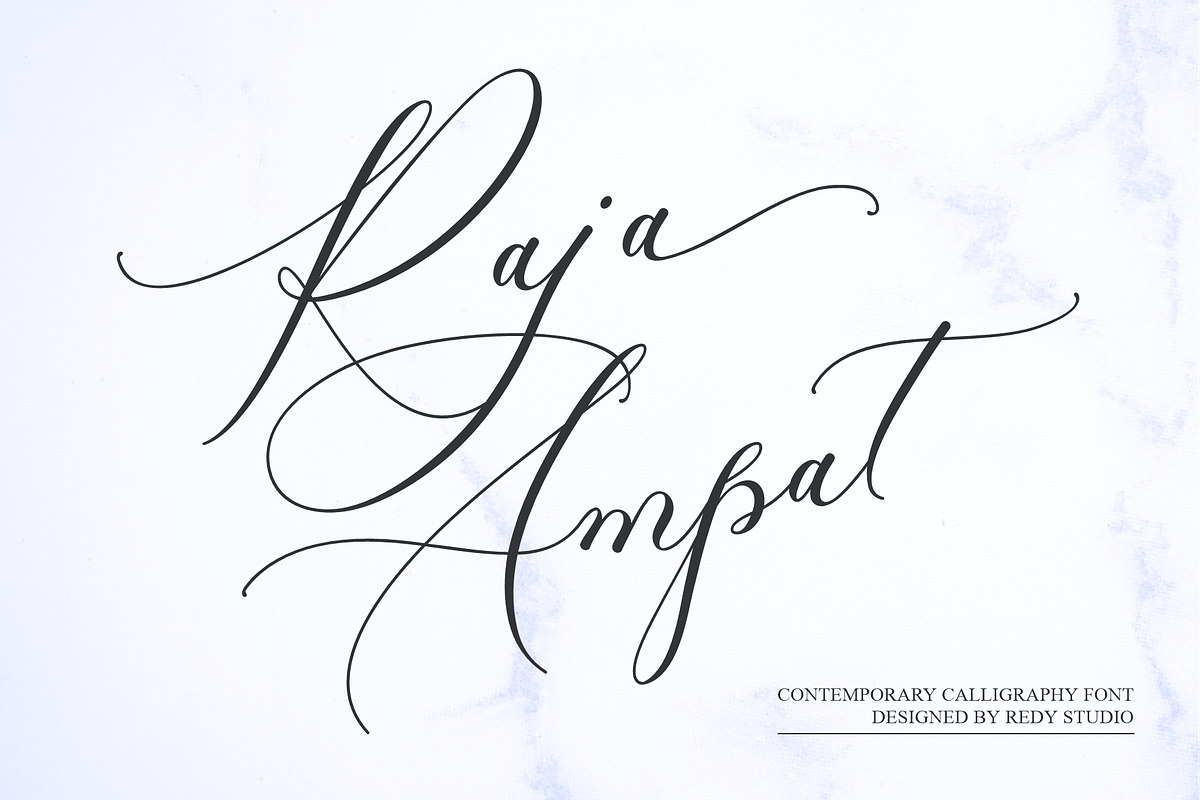
Say “I do” to timeless elegance with Raja Ampat Modern Wedding Fonts Free Download — a beautifully romantic typeface made for weddings, love letters, and every heartfelt moment in between. Designed with grace and modern flair, this font is perfect for invitations, save-the-date cards, bridal logos, and luxury event branding.
Raja Ampat brings together clean calligraphy strokes with stylish script curves, creating a harmonious balance that feels upscale and deeply personal. It includes a full set of uppercase and lowercase letters, numbers, punctuation, and multilingual support — everything you need to craft memorable wedding visuals.